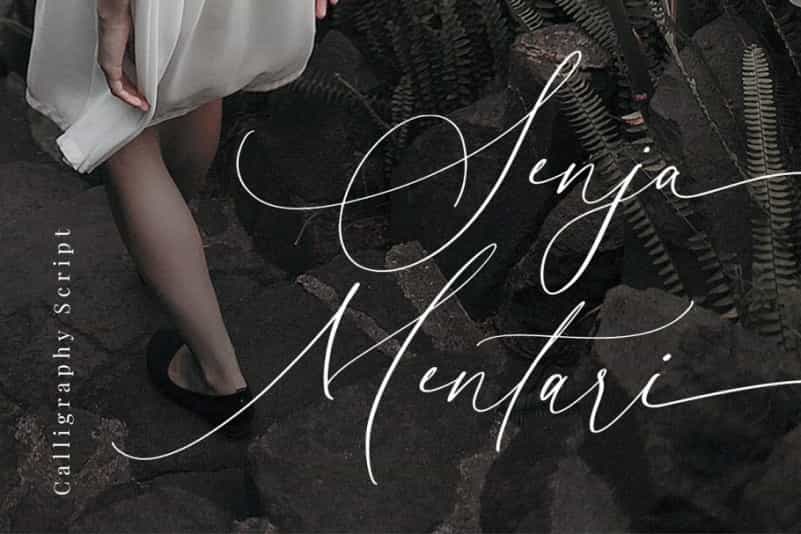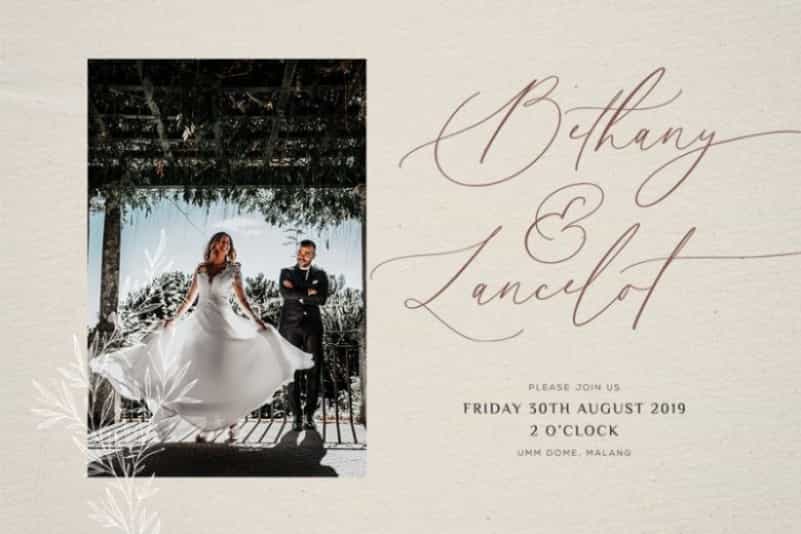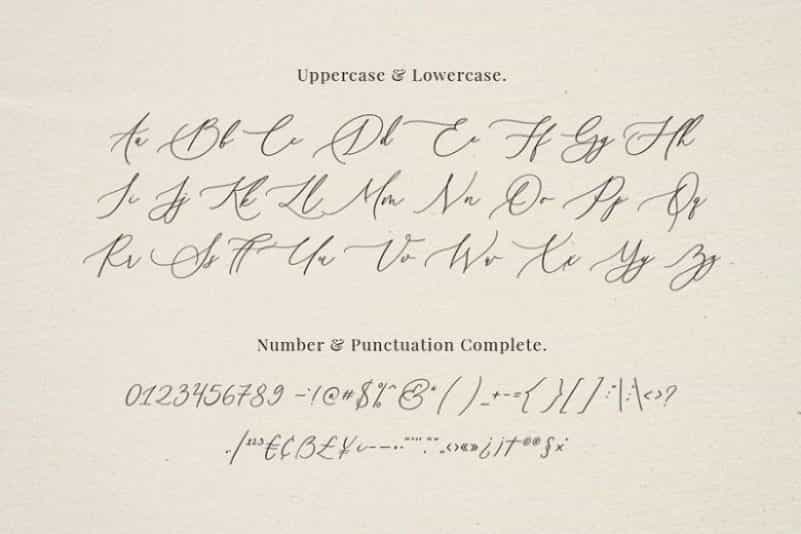
Senja Mentari is a classy modern calligraphy font which was created by the delicate inky hand lettering, beautiful wedding calligraphy and currently popular minimal branding designs. This lovely combination of fonts is for those who are in search of elegance and fashion for their designs and particularly, it is the best option to use on wedding invitations, cards and feminine branding.